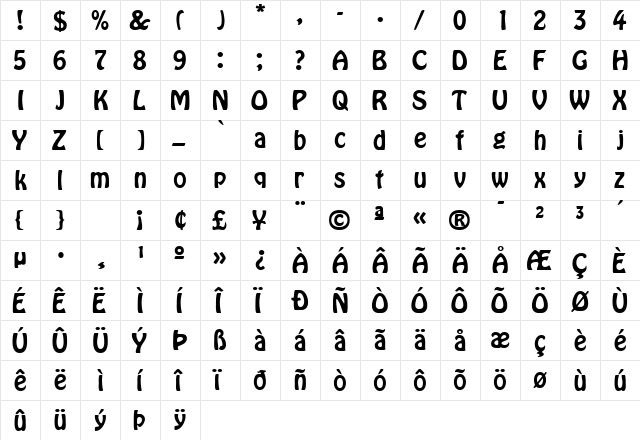
BoffoSSK Regular
Design Context for BoffoSSK Typeface
BoffoSSK offers clean, dependable letterforms without strong stylistic allegiance, making it a practical choice for designers who need flexibility.